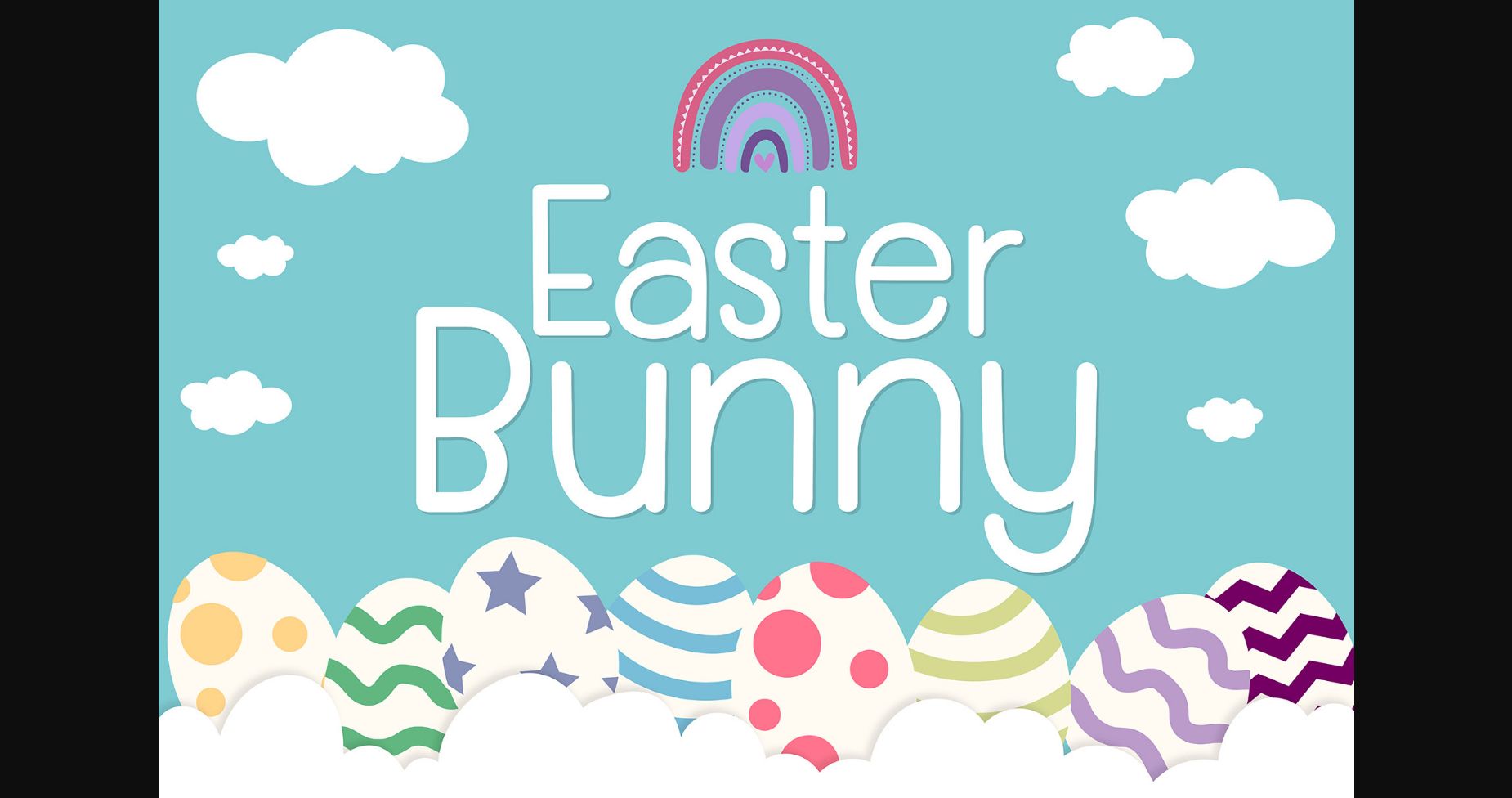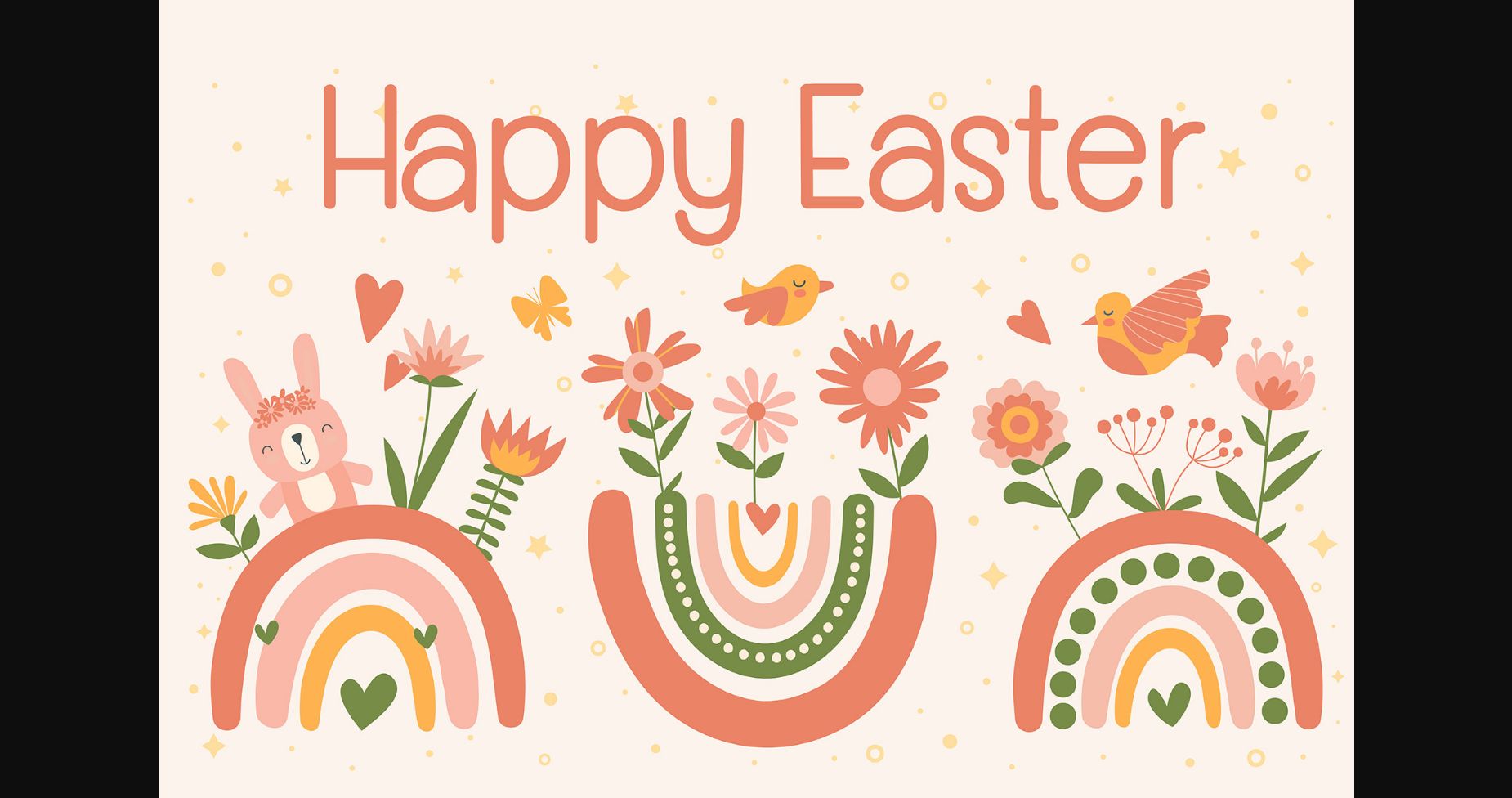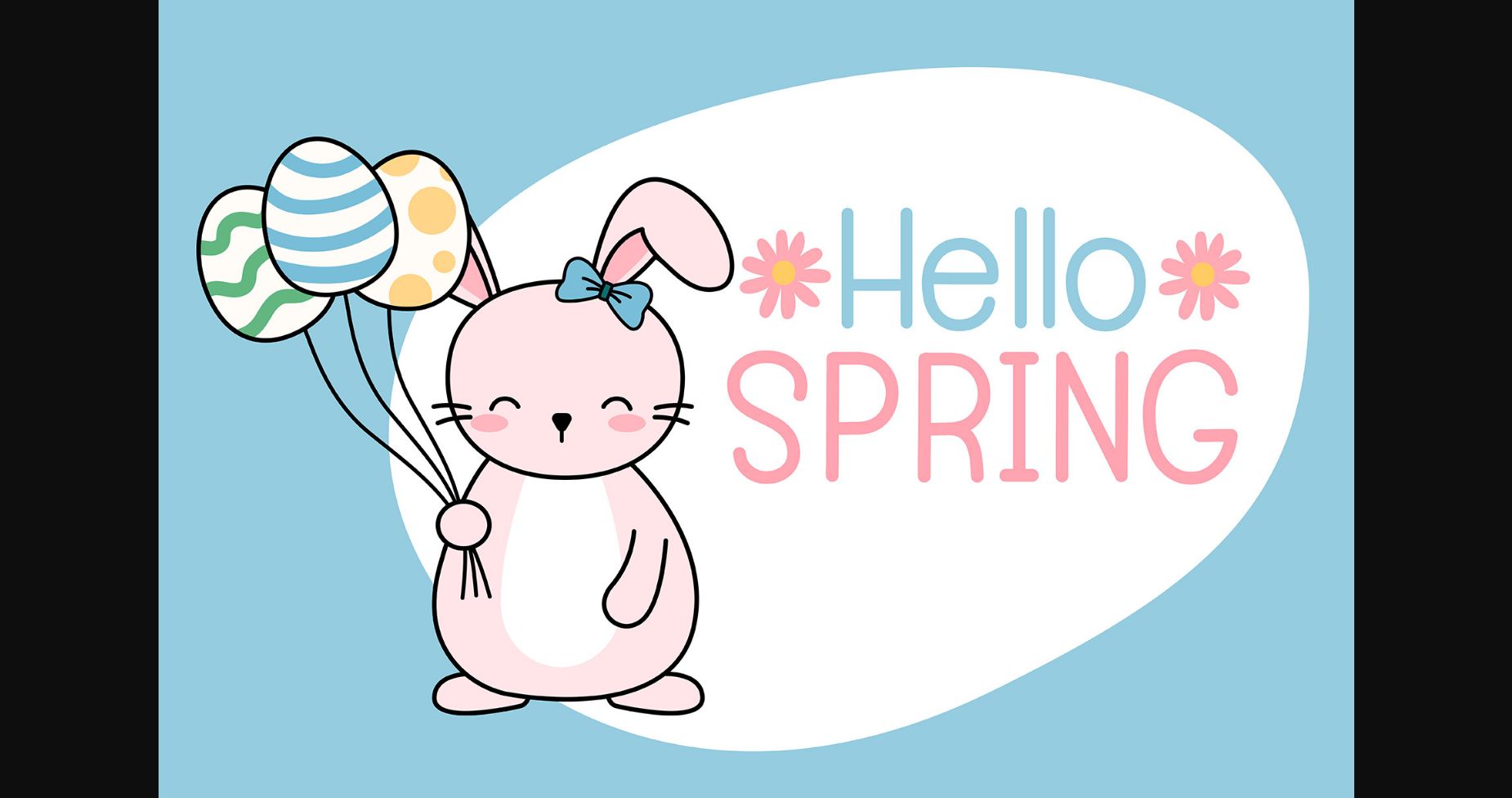
Easter Bunny Font
About Easter Bunny Font
Easter Bunny is a cute and simple sans serif font. It may be used for a variety of occasions such as children projects, blog posts, logos, branding, ads, invitations, greeting cards, planners, photo albums, decorations, and much more.